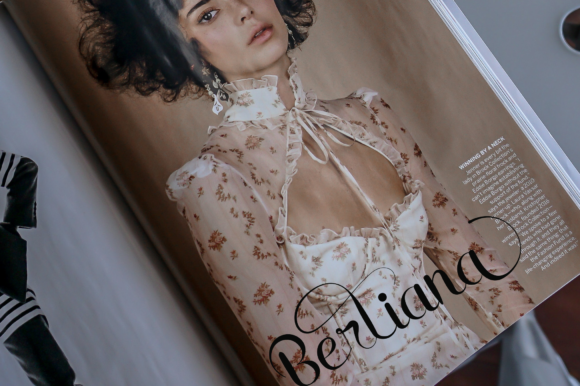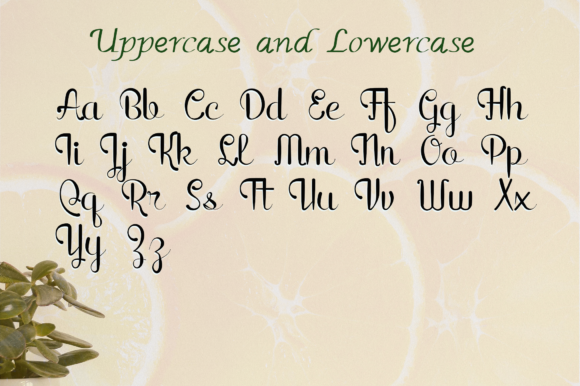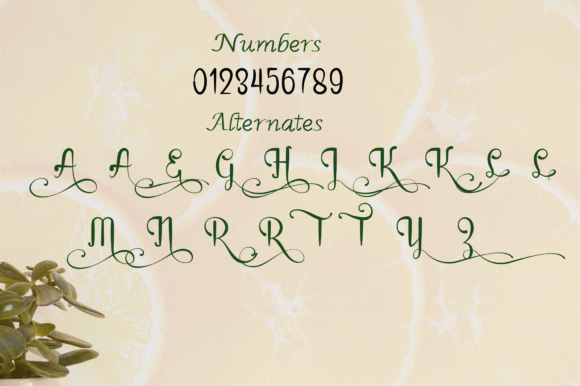
Introduction to Rain in Spring Font
Have you ever been working on a creative project and needed the perfect font to elevate it to the next level? For many designers, the search for that elusive font can be a tedious and time-consuming task. But what if I told you that you’ve just found it? The Rain in Spring Font is a stunning modern script font that’s perfect for branding, signature, wedding invitations, and more.
| 👤 Author | Dedi Art Studio |
With its high-quality, handwritten design, this font is a stylish homage to classic calligraphy. Its elegant and sophisticated look makes it a valuable asset for designers looking to add a touch of sophistication to their creative projects. And the best part? It’s available for free download, making it an accessible design resource for designers of all levels.
Whether you’re working on a wedding invitation, product packaging, or promotional materials, the Rain in Spring Font is sure to make a lasting impression. Its transparent background and high-quality design make it a versatile and reliable design resource that’s sure to elevate your creative projects to the highest level.
Key Features of Rain in Spring Font
- High-quality, vector-based font ideal for creative projects and design resources.
- Includes a range of glyphs and characters, making it suitable for a variety of applications, from logos to typography.
- Designed with a focus on legibility and aesthetics, making it perfect for print and digital projects.
Honest Review: Rain in Spring Font
As a designer, I’m always on the lookout for high-quality design resources to enhance my creative projects. The Rain in Spring Font caught my eye with its unique and whimsical feel. I decided to give it a try and share my honest review.
What works well: ✨ The Rain in Spring Font is a beautiful, delicate script font that’s perfect for adding a touch of elegance to any design project. I love the way it flows and the subtle details that make it feel so human. The font is also available for free download, which is a huge bonus. With a transparent background, I can easily overlay the font on any image or design element.
Here are some of the font’s key features:
- Delicate script font with a whimsical feel
- Transparent background for easy overlay
Limitations: ⚠️ While the Rain in Spring Font is a great addition to any design project, I do find that it can be a bit difficult to read in certain contexts. The font is best suited for titles, headings, and other display text. For body text, I prefer a font with a bit more clarity and legibility.
Overall, I’m really impressed with the Rain in Spring Font. It’s a great design resource that can add a unique touch to any creative project. With its high-quality design and free download, it’s definitely worth checking out.
Tips for Getting the Most Out of Rain in Spring Font
To get the most out of Rain in Spring Font, experiment with different font sizes, colors, and combinations. Use the font to create a cohesive brand identity or to add a touch of whimsy to your design.
The Rain in Spring Font is ideal for use in wedding invitations, baby showers, spring-themed designs, and other creative projects that require a playful and whimsical touch.